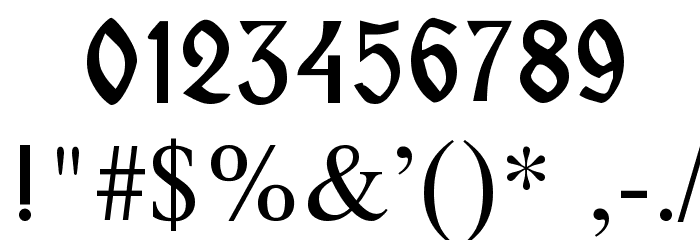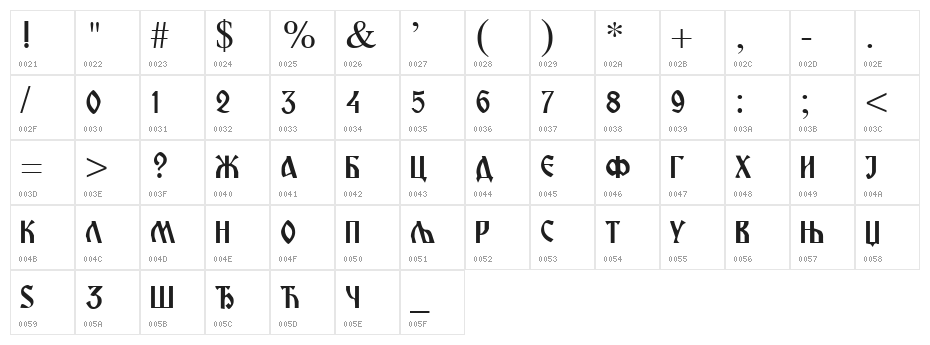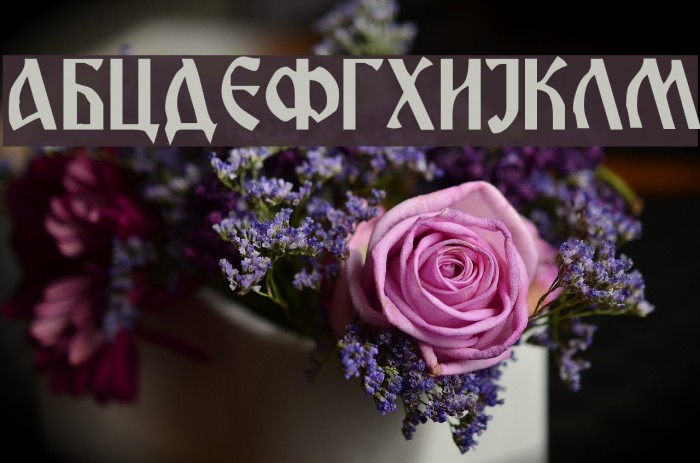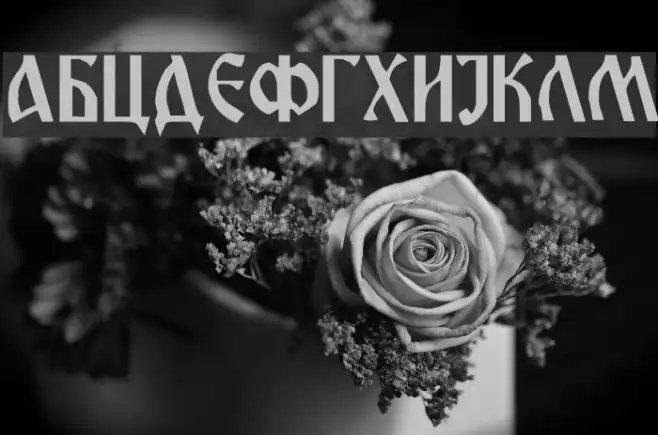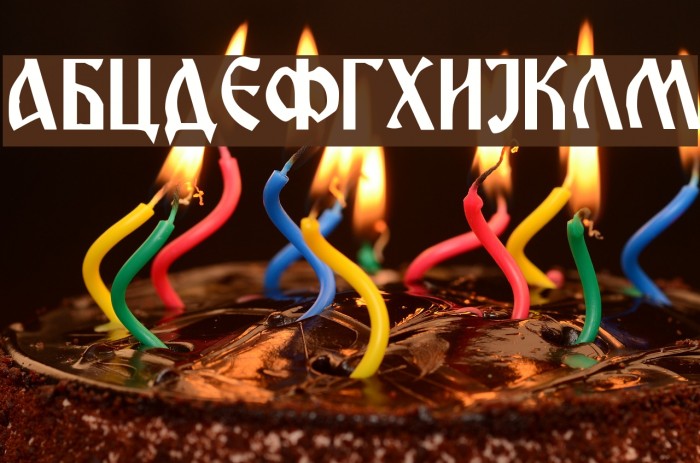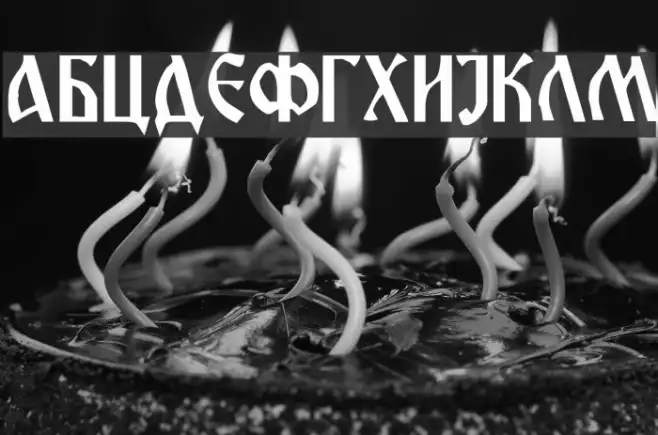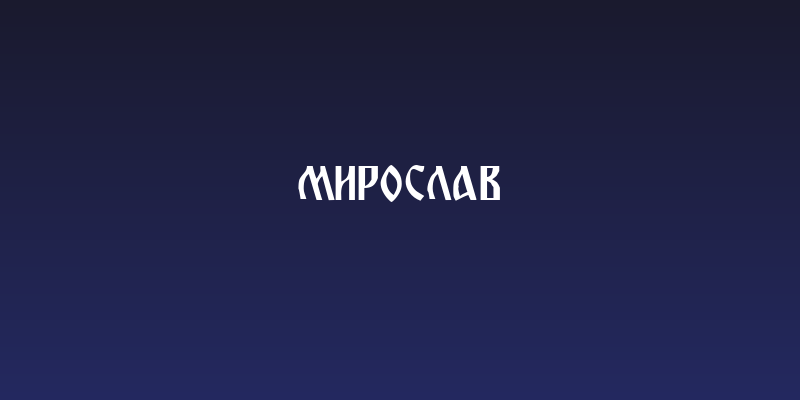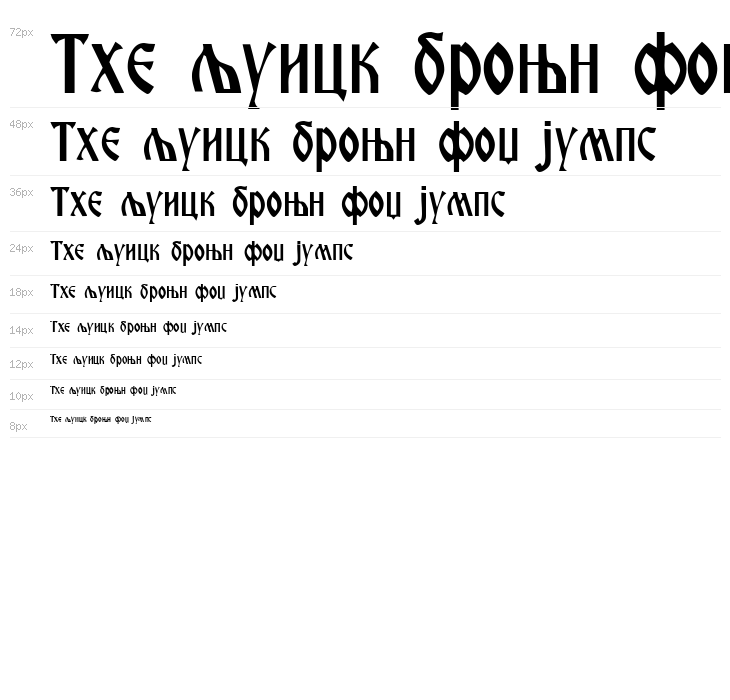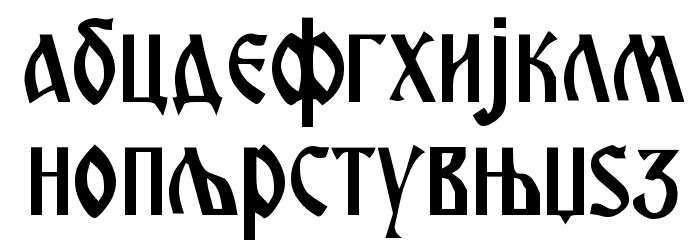
Miroslav Font
Miroslav Description
This font features a bold and striking design with a strong presence, characterized by its angular and sharp edges. The letters exhibit a unique blend of traditional and modern elements, with a slight slant that adds dynamism. The uppercase and lowercase letters maintain a consistent style, while the numerals and special characters complement the overall aesthetic. The font's distinctiveness makes it suitable for projects that require a bold statement, such as branding or advertising materials.